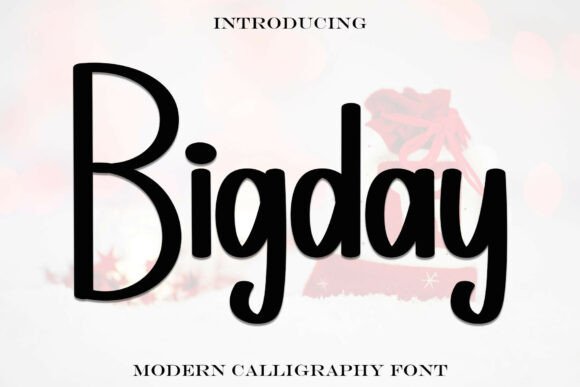
The Bigday Font: Elevating Your Designs with Elegance and Class
I still remember the frustration of working on a project, hours spent searching for the perfect font, only to end up with something that just didn’t feel right. My client wanted a design that exuded elegance and sophistication, but my font choices just weren’t delivering. That’s when I stumbled upon the Bigday font, a trendy handwritten font that has since become a staple in my design toolkit.
A Personal Review: What I Love About Bigday
So, what makes Bigday so special? Here are a few things that I absolutely love about this font:
- ✨ Contemporary atmosphere: Bigday has a modern feel that’s perfect for designs that need to feel fresh and current.
- ✅ Impeccable form: The font’s classic calligraphy inspiration shines through in its precise lines and elegant curves.
- 💫 Elegance and class: Bigday adds a touch of sophistication to any design, making it perfect for high-end projects or clients looking for a luxurious feel.
While Bigday is an amazing font, it’s not without its quirks. Here are a few things to keep in mind:
- 🤔 Limited use in body text: While Bigday is stunning in headings and titles, it may not be the best choice for longer blocks of body text.
- ⚠️ Some glyphs may require manual adjustment: Depending on your design, you may need to tweak certain glyphs to get the perfect look.
One of the best things about Bigday is its support for OpenType features and glyphs. Here are a few tips for getting the most out of these features:
- Stylistic alternates: Bigday comes with a range of stylistic alternates that can add visual interest to your designs.
- Glyphs: The font includes a range of glyphs, from standard punctuation to more decorative elements.
The Backstory Behind Bigday
Bigday was inspired by the timeless beauty of classic calligraphy. Its designer wanted to create a font that would bring a touch of elegance and sophistication to modern designs. With its impeccable form and contemporary atmosphere, Bigday is the perfect choice for designers looking to elevate their work.
Here are a few frequently asked questions about Bigday:
- Q: What type of designs is Bigday best suited for?
- A: Bigday is perfect for designs that need a touch of elegance and sophistication, such as luxury brands, high-end products, or formal events.
- Q: Is Bigday available in different weights or styles?
- A: Bigday comes in a range of weights and styles, making it versatile enough for a wide range of design applications.